Bree at Avenor College
The warm and approachable Bree family has been used for Avenor College’s branding since 2018.
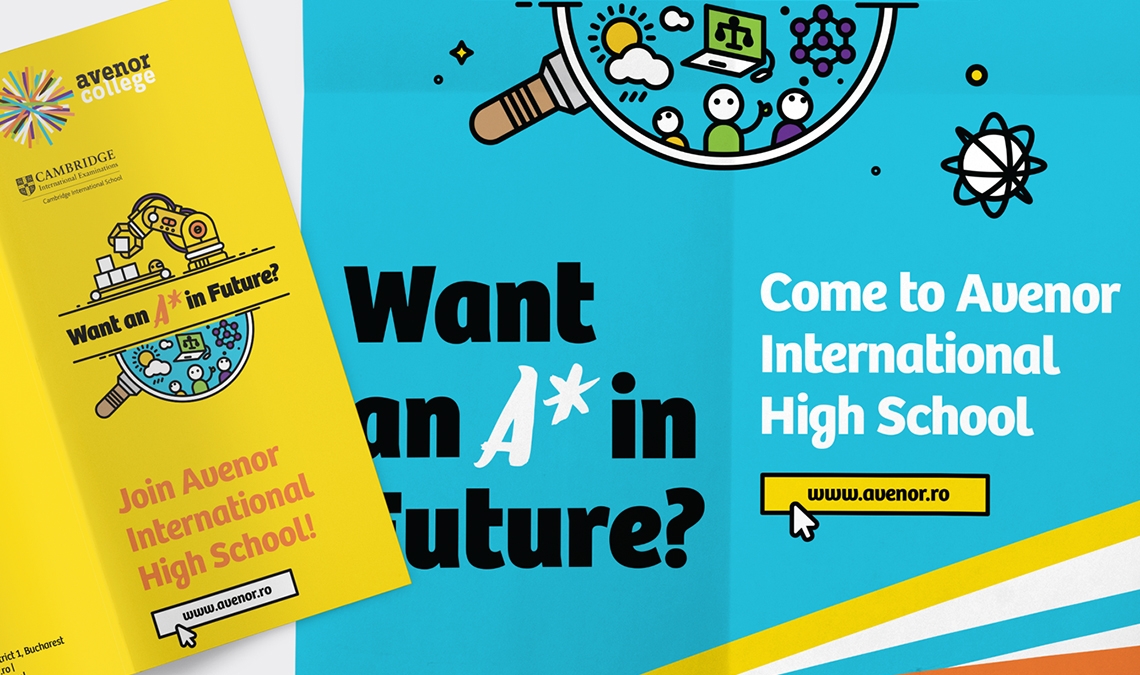
The warm and approachable Bree family has been used for Avenor College’s branding since 2018.
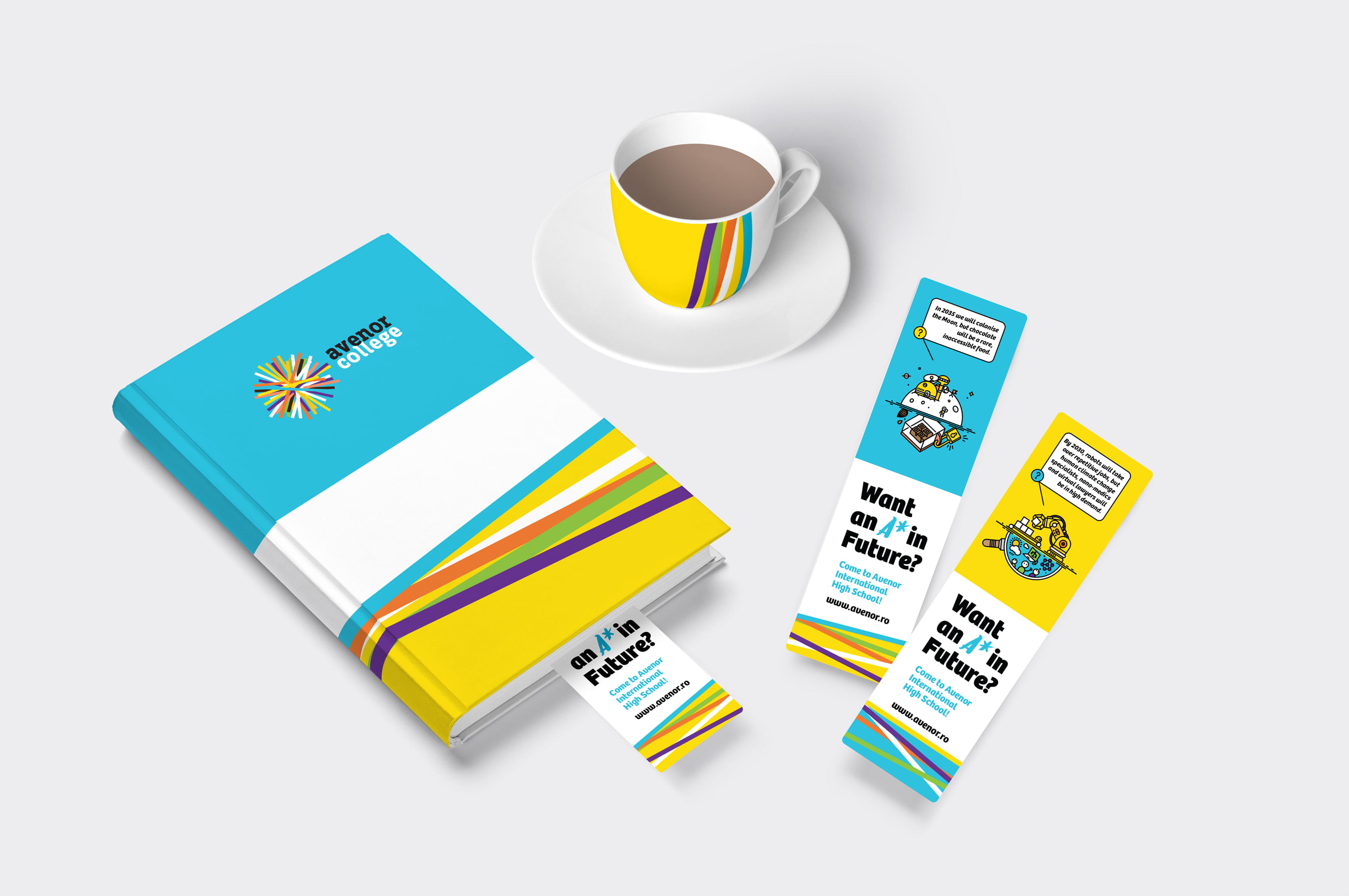
Avenor College is a bilingual school (Romanian and English) based in Bucarest, which started 20 years ago as a small kindergarten called Little London. Since then it has grown into nursery, primary school, and high school.
In 2013  Little London became Avenor College and the London-Romanian agency Storience created a completely new look for the school. Bree was introduced at first on the website, but not in the full branding. A year later, Avenor College contacted Storience to create a launch campaign for their high school. Bree became the main star for the campaign becuase of its clarity, friendly and approachable look, and ability to speak hundreds of Latin-based languages.
The Bree font family is a spry sans serif that delivers a spirited look and feel for branding and headline usage. As an upright italic, Bree shows a pleasant mix of rather unobtrusive capitals with more vivid lowercase letters, giving text a lively appearance. Bree is clearly influenced by handwriting, has a touch of cheekiness, a wide stance for each character, and an extra-large x-height, which equals a big personality. The full bundle includes variable fonts for those who want to invest in the future of design or who value space and data-savings.